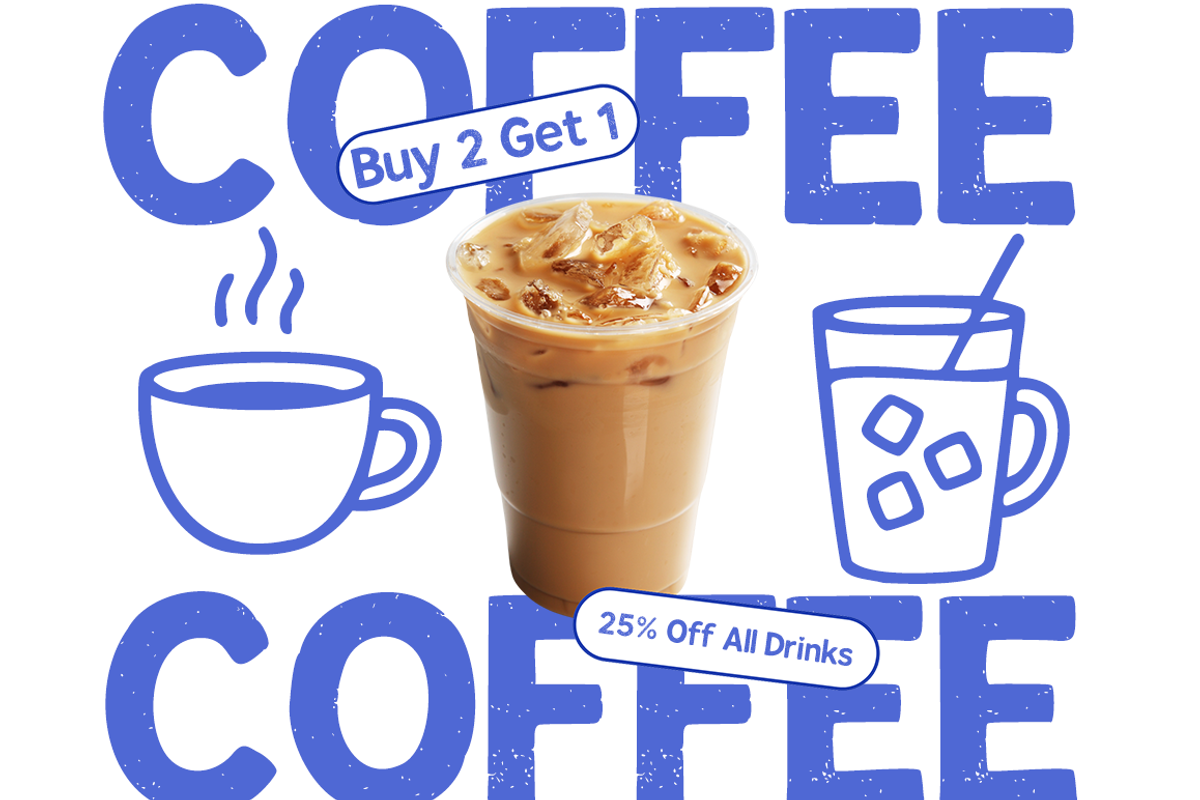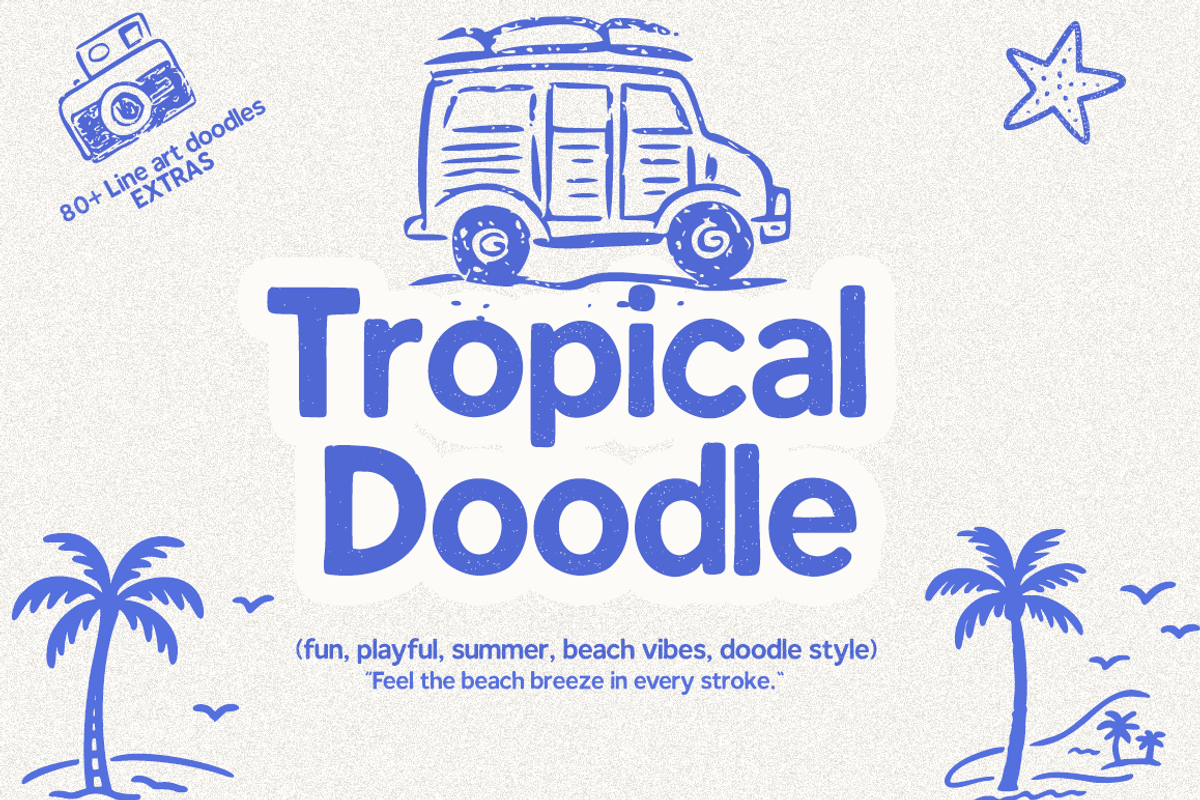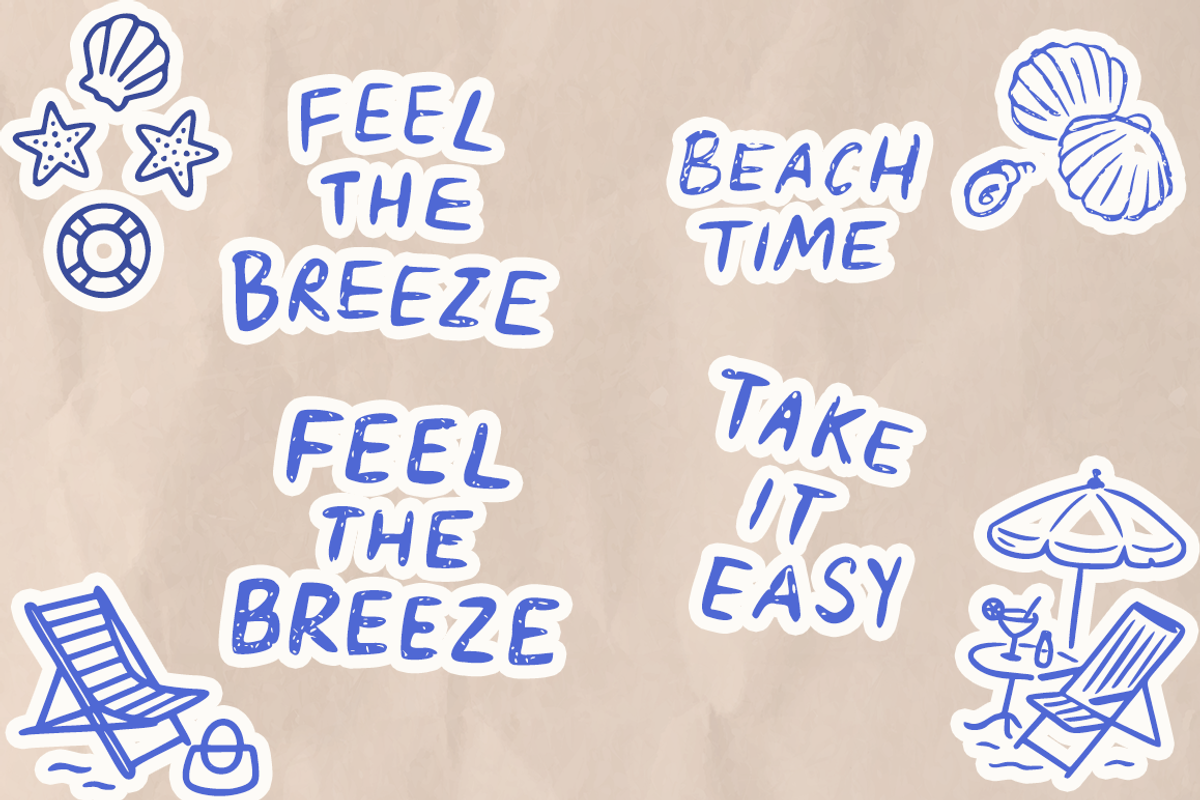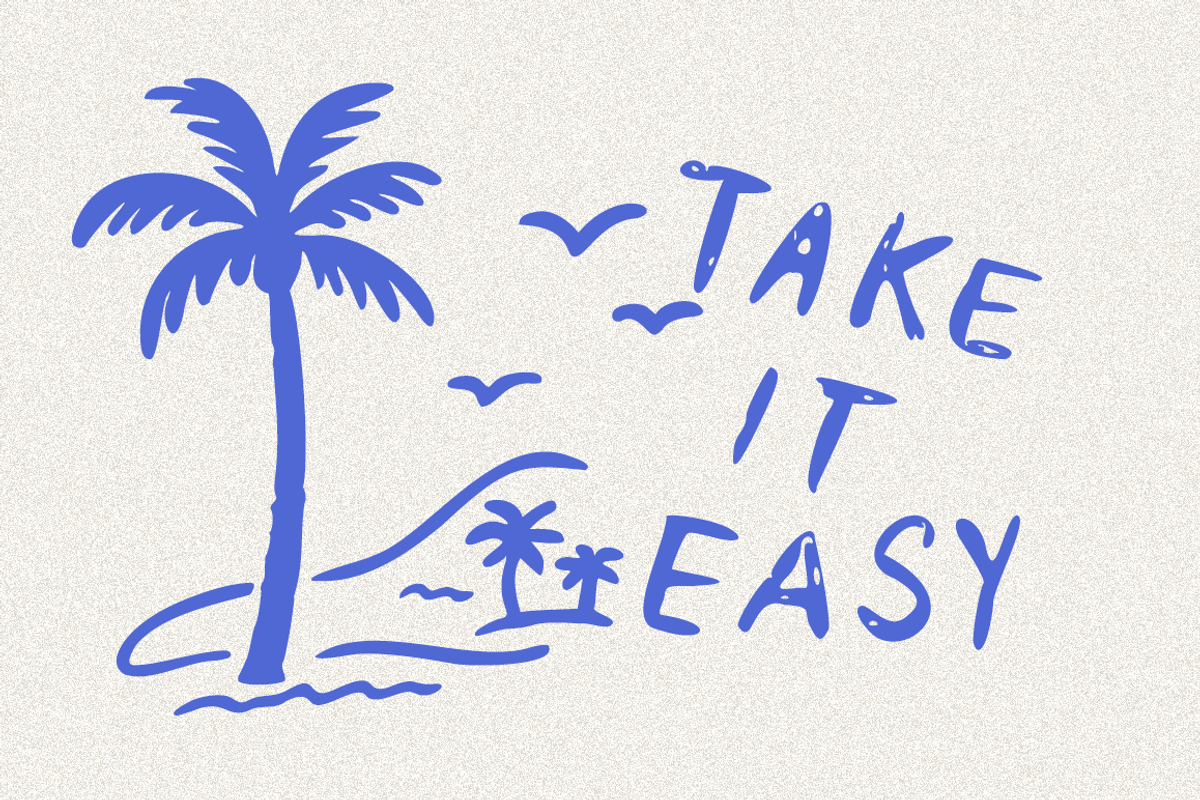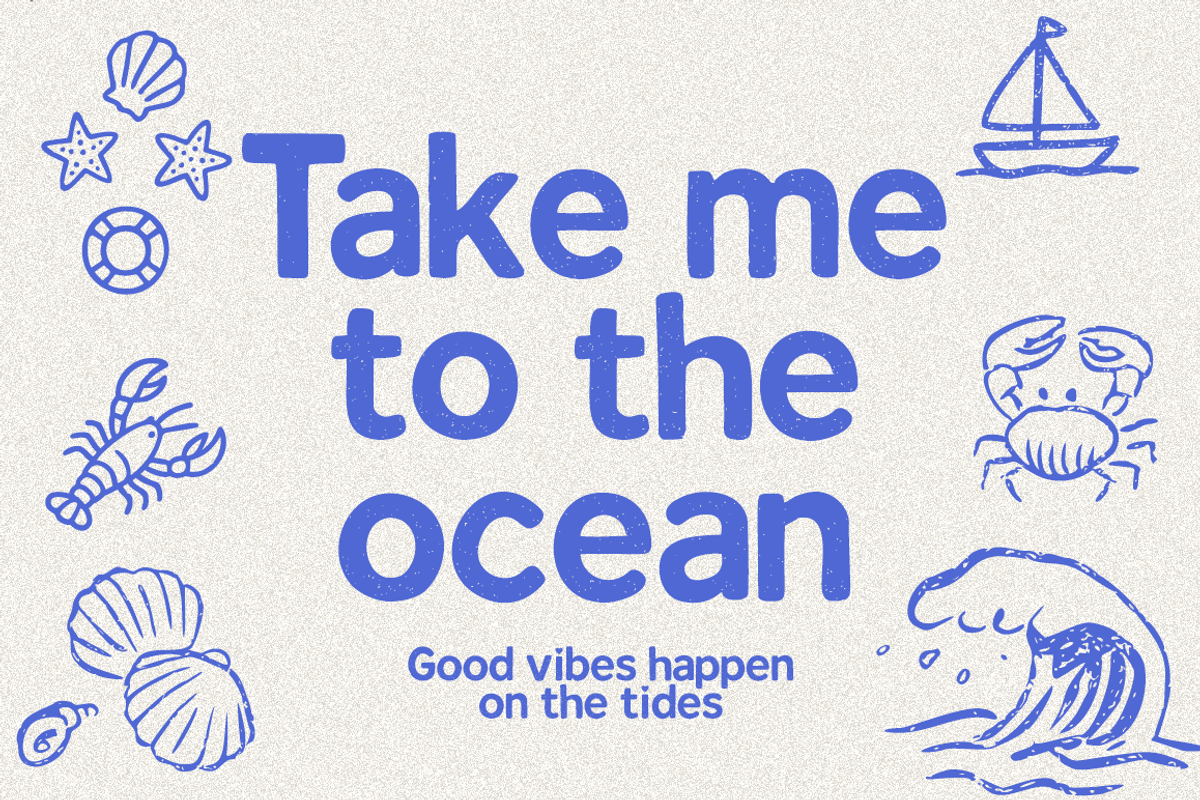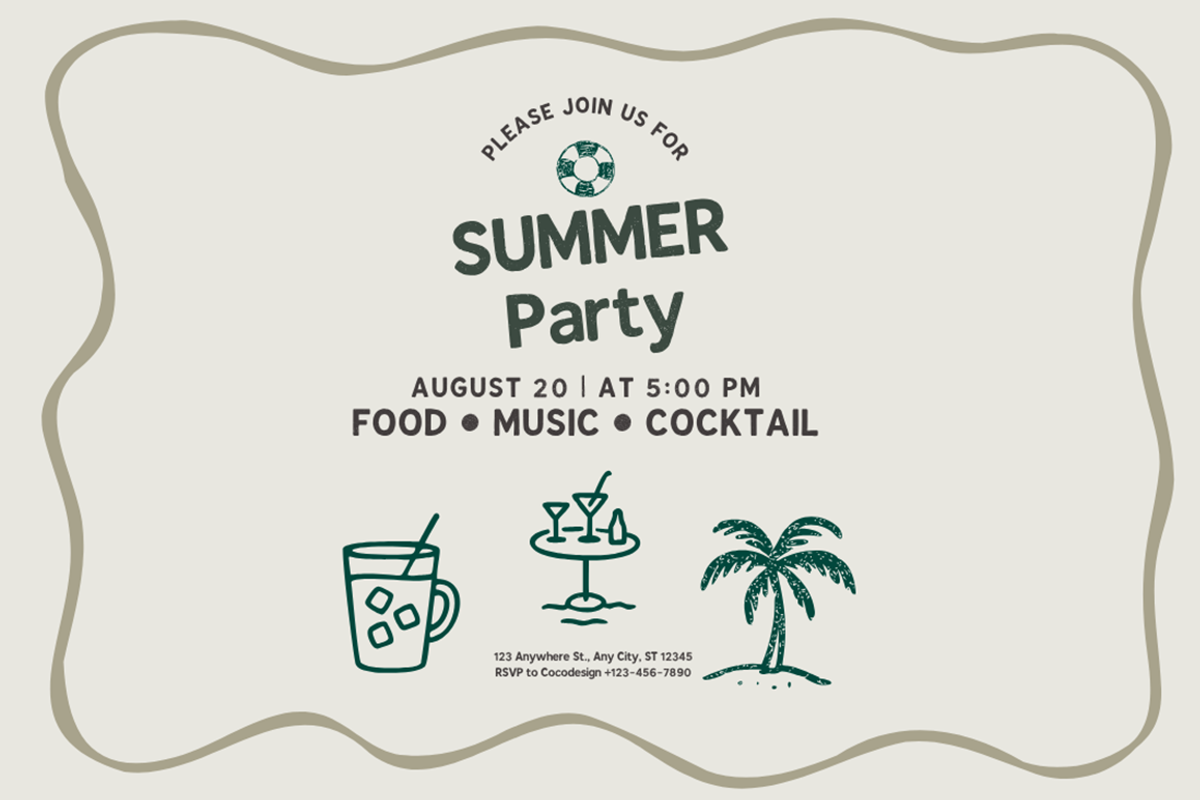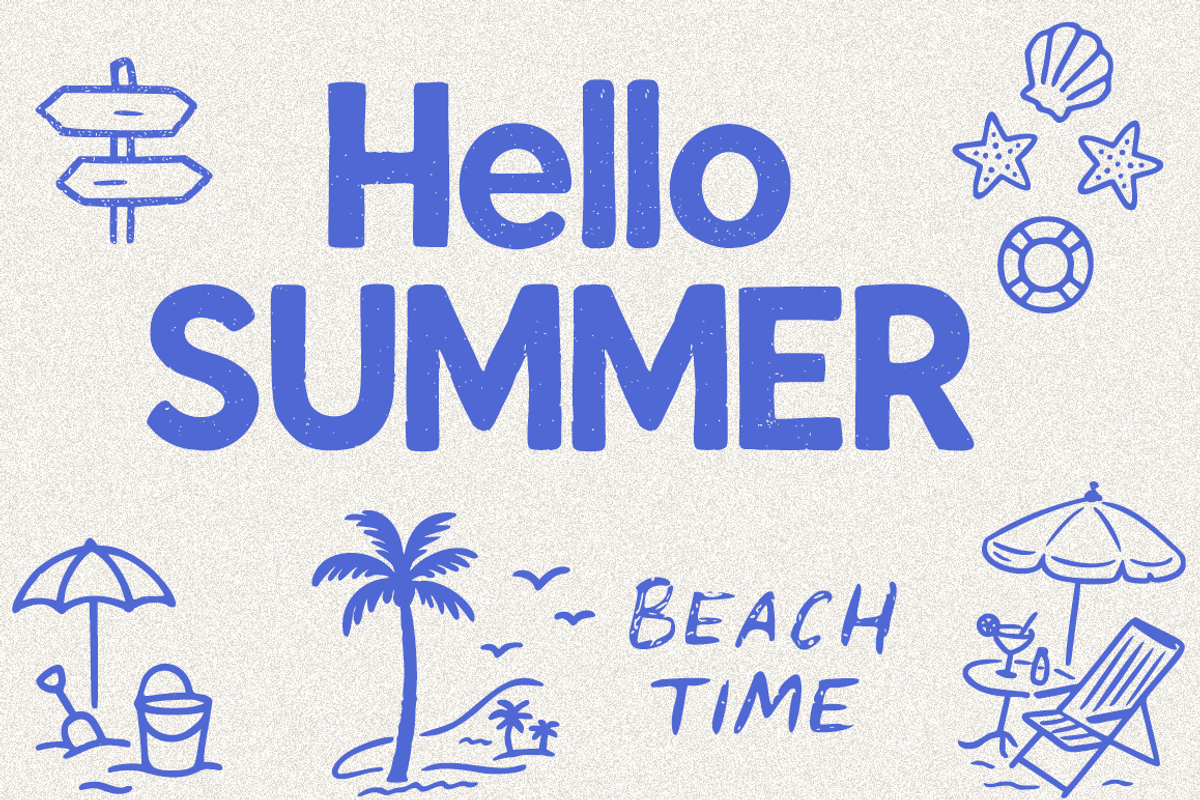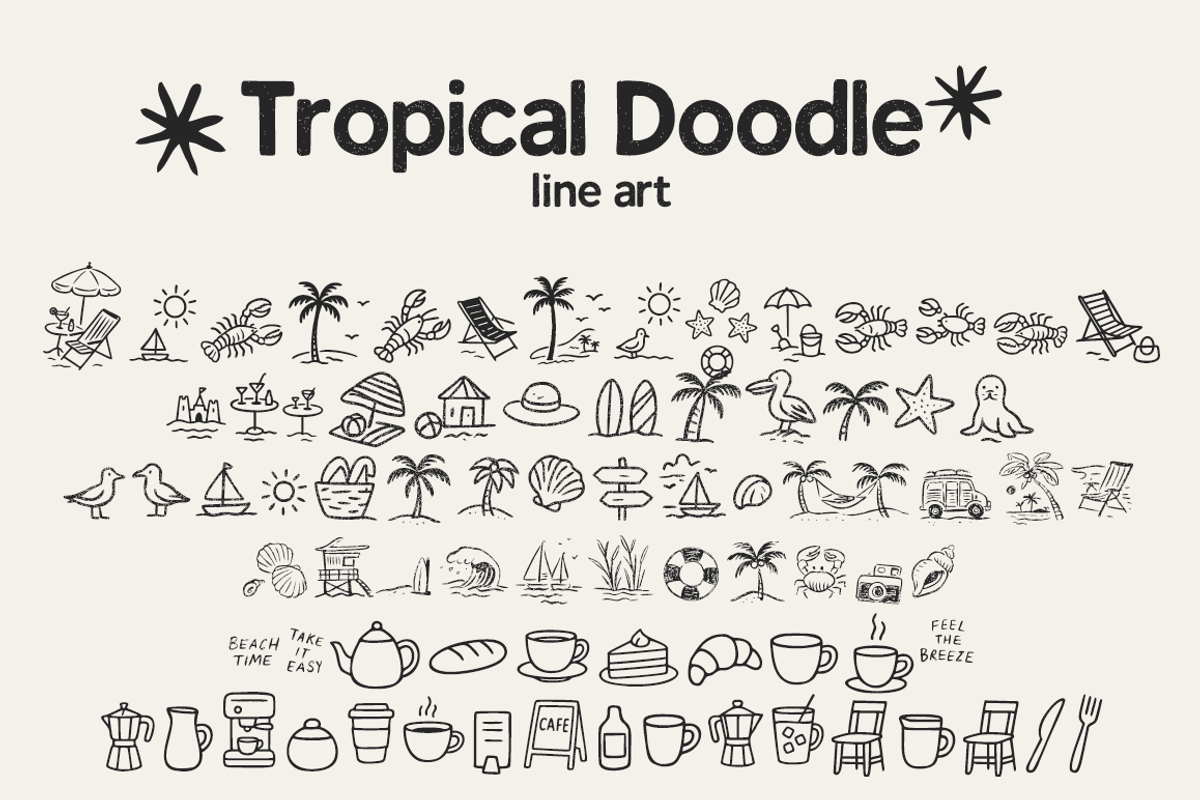
Tropical Doodle
Tropical Doodle – Playful Summer Hand-Drawn Font
Tropical Doodle is a fun, hand-drawn display font inspired by tropical beaches and sunny summer days. Each letter features soft rounded edges and friendly line-stroke shapes, giving your designs a warm, relaxed, and carefree feel—just like doodling on a sandy beach.
Perfect for summer branding, beachwear labels, kids’ projects, travel content, posters, invitations, and lifestyle merchandise. The font is easy to read, bold enough to stand out, and full of personality, making it ideal for logos, headlines, packaging, and vibrant social media visuals.
This pack also includes 80+ line-art doodles such as palm trees, surf van, waves, starfish, camera icon, beach scenes, and other tropical elements—ready to enrich your layouts and give them a cohesive summer vibe.